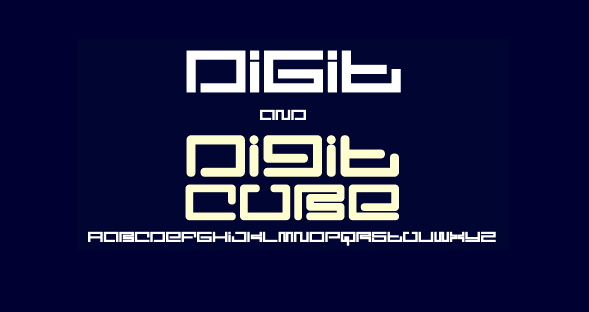
Digit
You might not notice this, but if you look close enough, you will see that this font is nothing less than a tricked out version of Metroplex. However, this font is not Metroplex, nor is it my newest electronic font, Digit. This little guy has smooth round edges and extremely generous holes in some of the letters. It is a nice font. In this piece you will also get Digit Lo-Fi Shift, which is the essential counterpart to the aforementioned. Digit Lo-Fi Shift is an extremely long name for a font, especially in this day and age, but seriously, it still sounds kind of cool.
Digit
Digit LoFi
Digit LoFi Shift
Digit Cube
The Digit font family includes 226 glyphs.